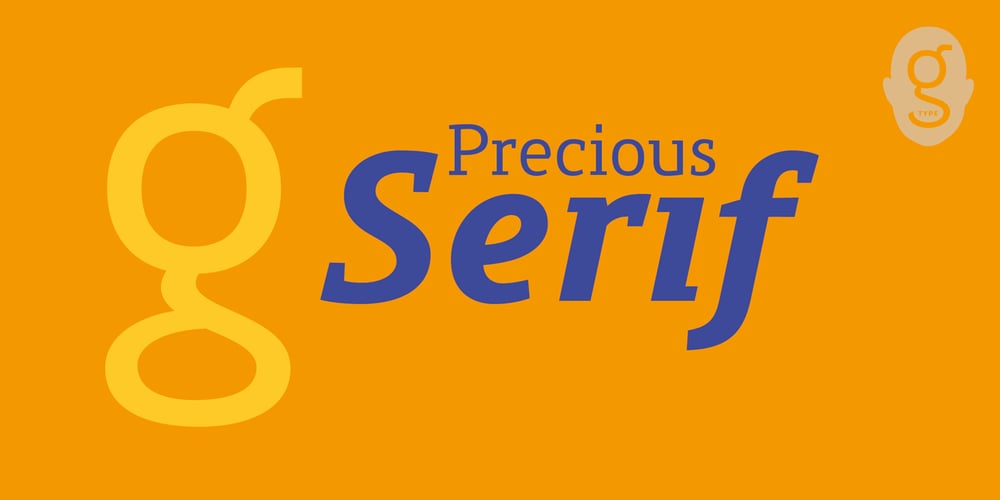
Precious Serif Font Family was designed by Nick Cooke and published by G-Type. Precious Serif contains 12 styles and family package options. Precious Serif is a distinctive, modern slab serif typeface, first released in 2003 and now refreshed in 2017. This contemporary, chunky gem is the sister typeface to our Precious Sans family, both sets designed with similar metrics and characteristics to ensure they pair together seamlessly in print & digital applications. Mix Precious Sans & Serif together in a block of text to wonderful effect!